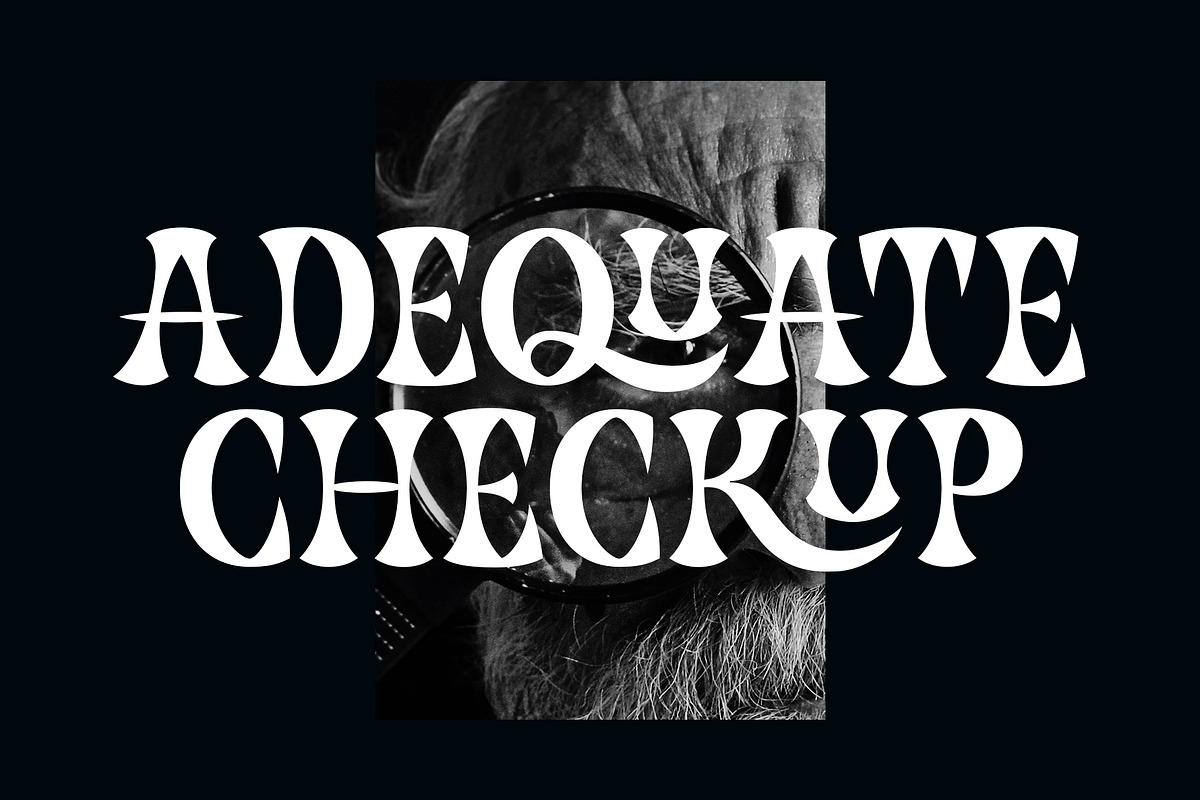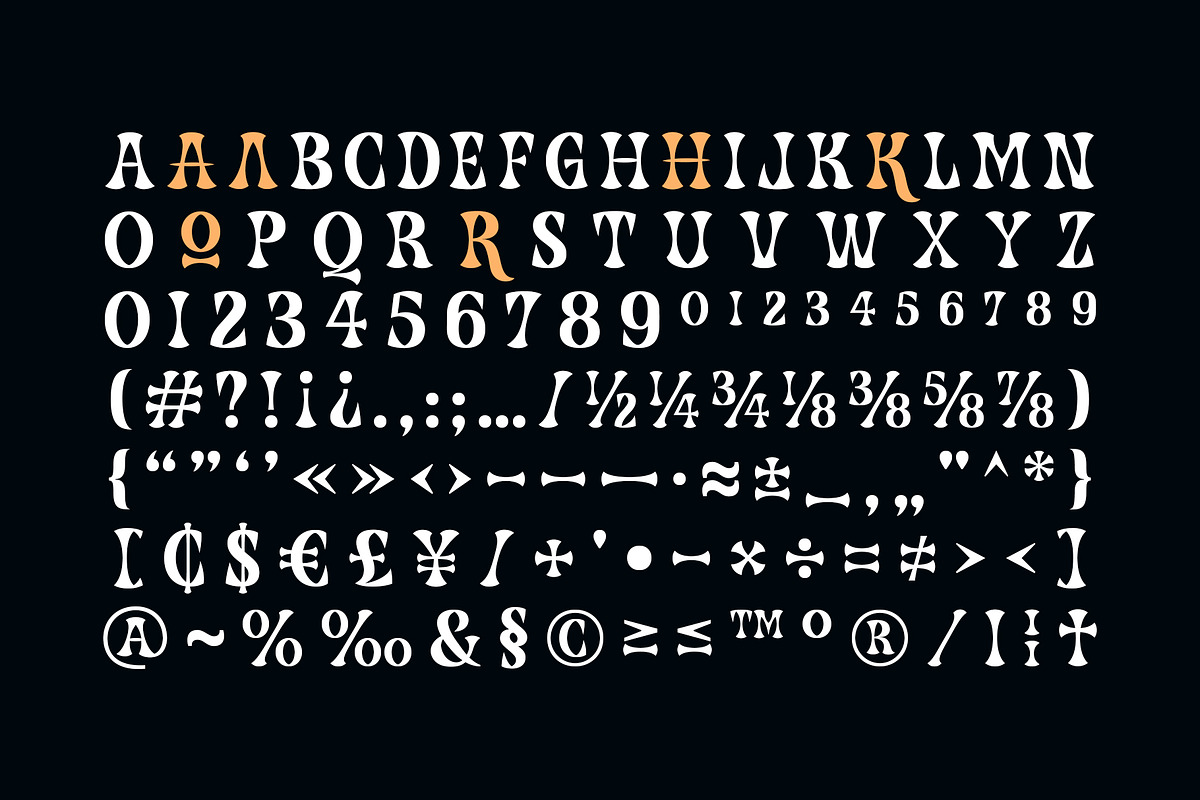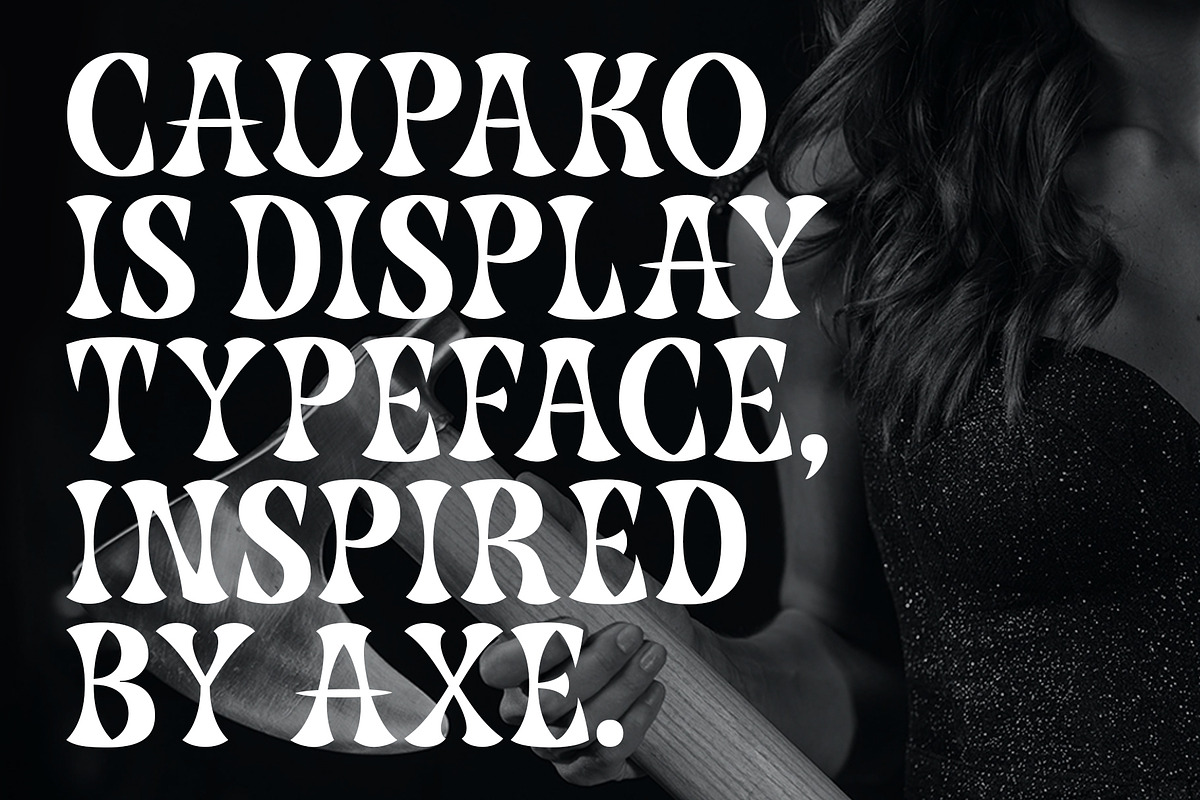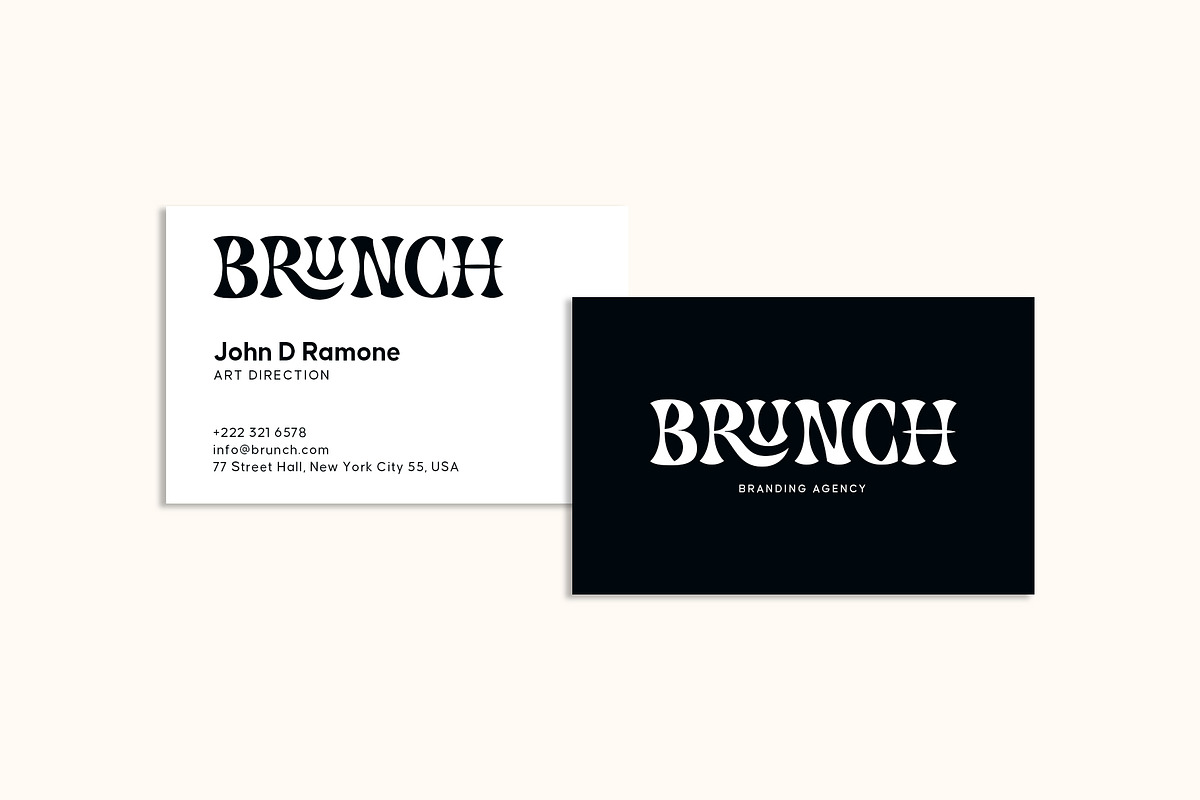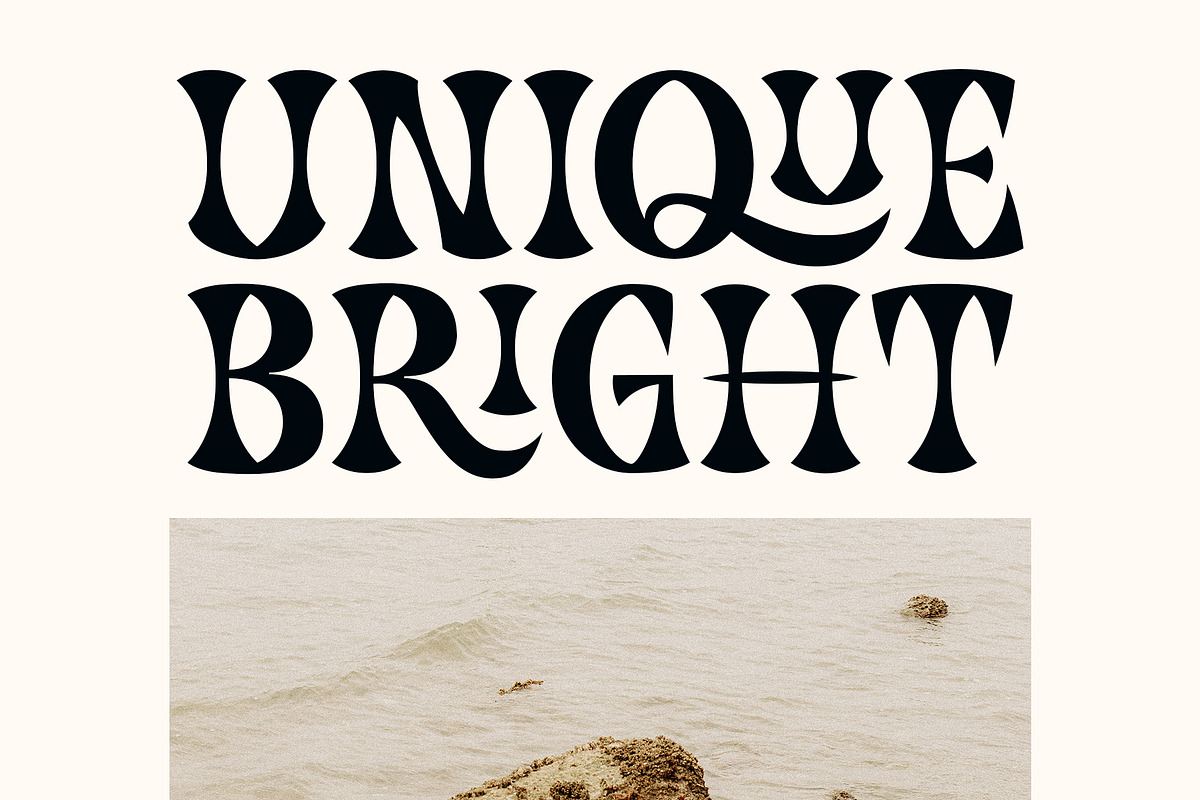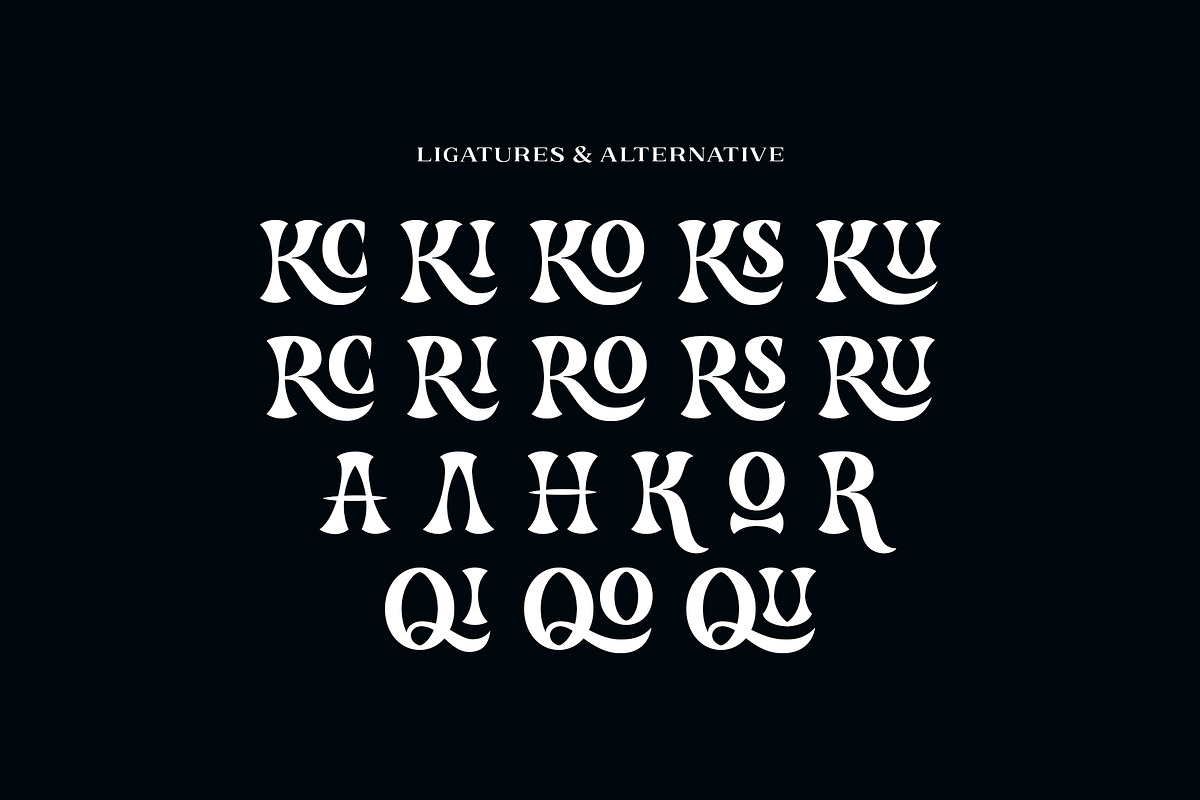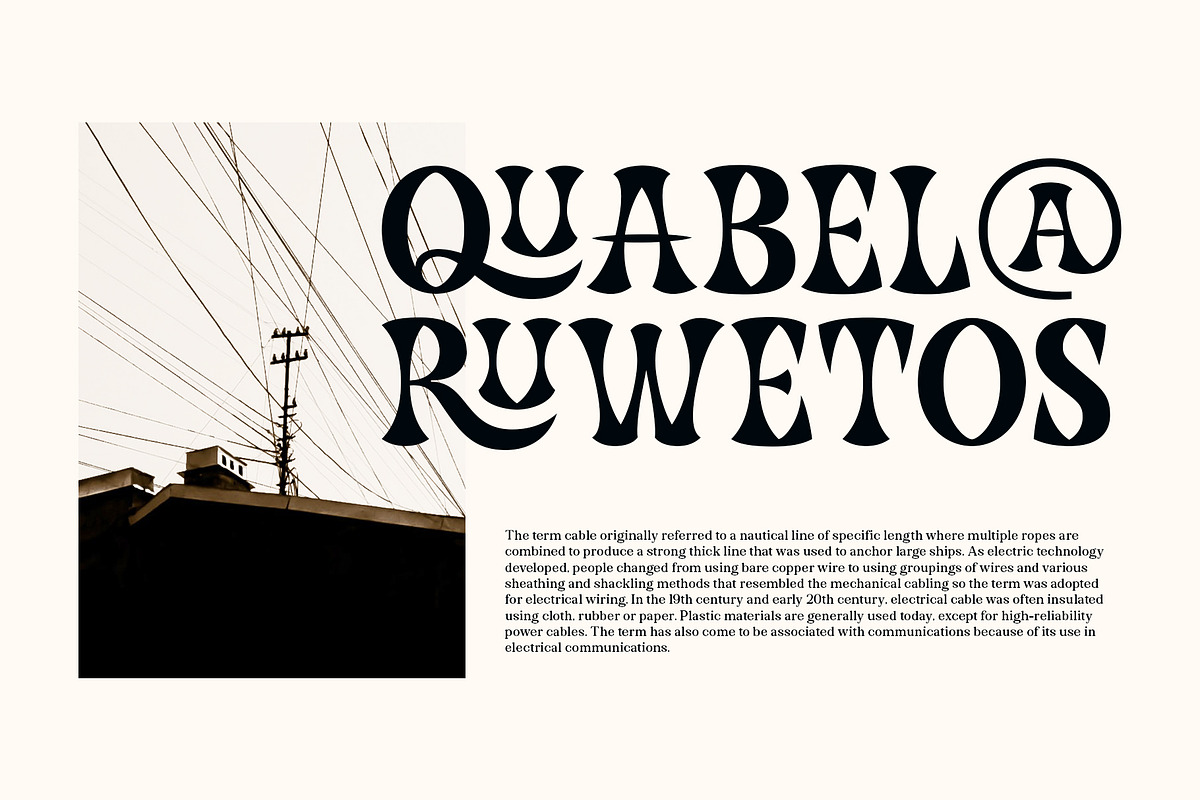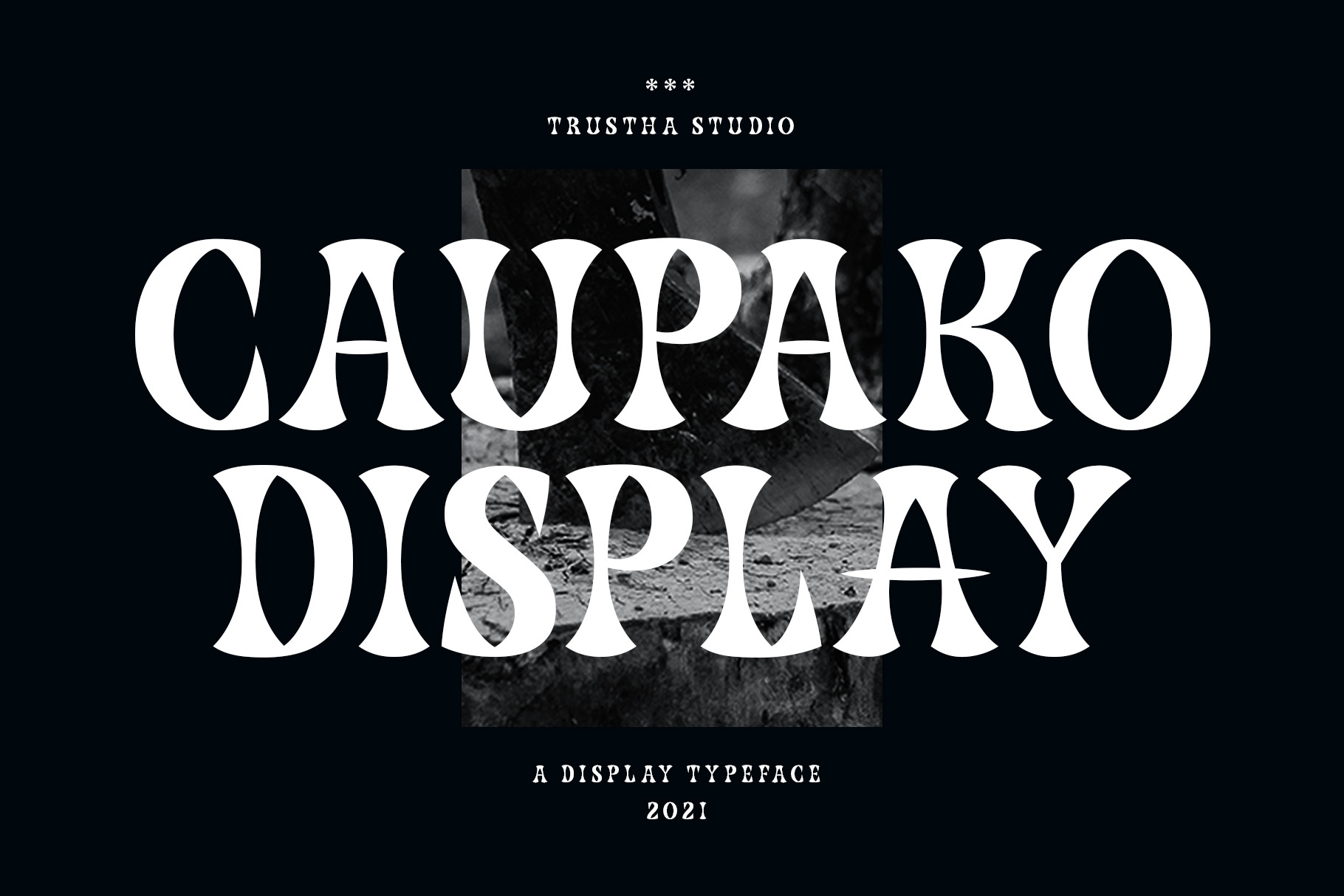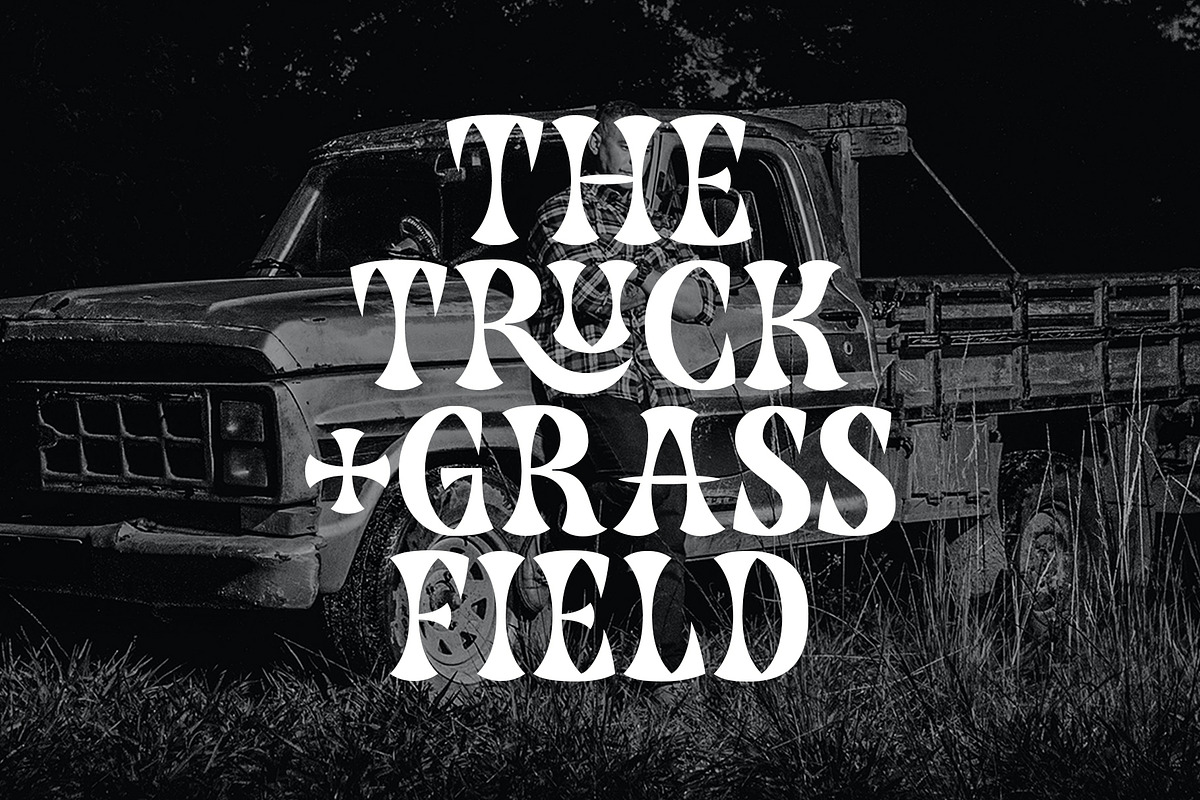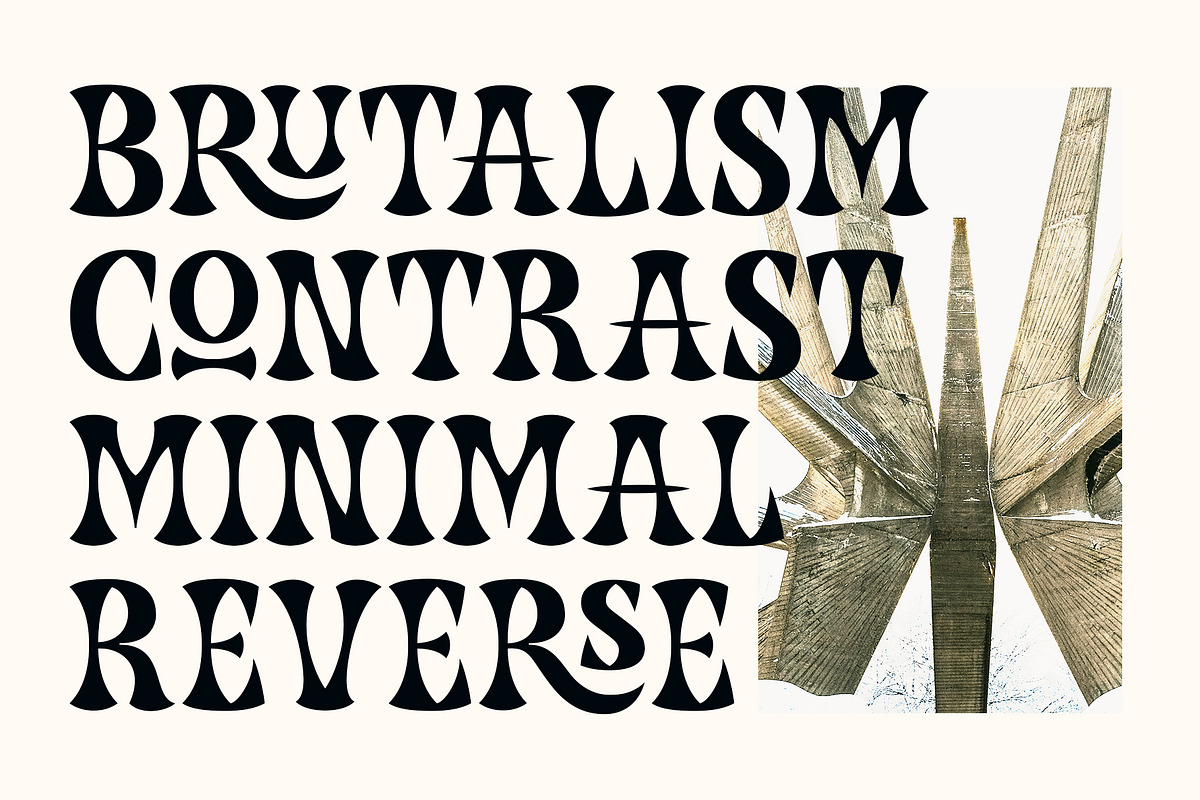
Caupako Font
Caupako is a display font. Inspired by the shape of the axe. Nostalgia on the legendary old action film. A young man armed with a deadly axe.
Comes in two font styles, regular and oblique. Caupako comes with 400+ glyphs, which also include multilingual languages. It's perfect for headlines, branding, and many more.
- Punctuation & symbols
- Stylistic sets
- International characters (Multilingual)